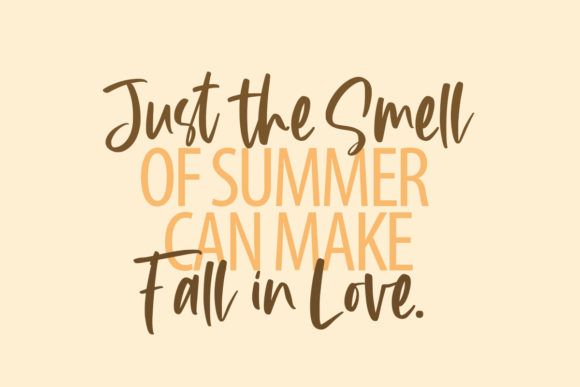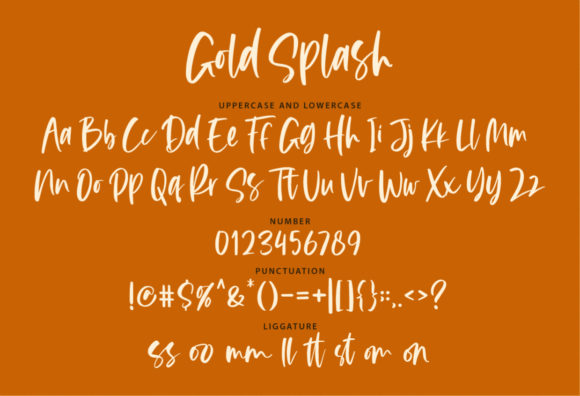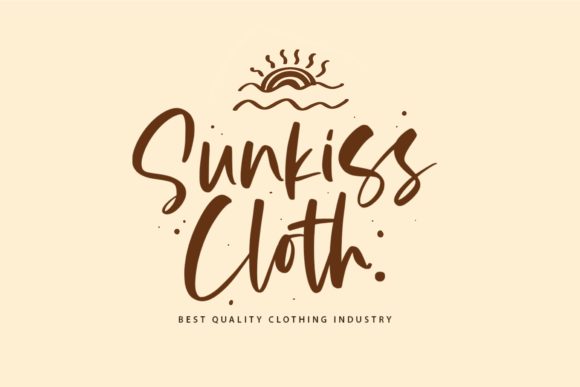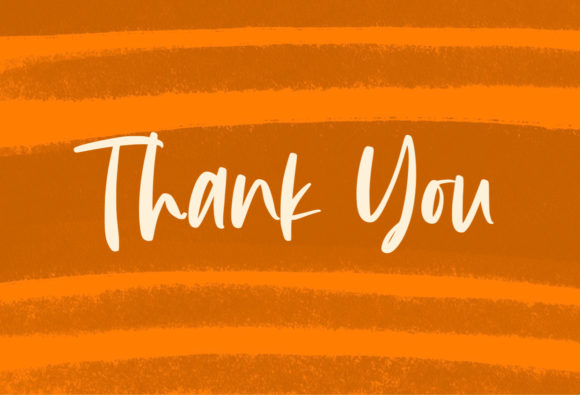
Gold Splash Font
About Gold Splash Font
Gold Splash is a beautiful handwritten font. Fall in love with its authentic feel and use it to create gorgeous wedding invitations, beautiful stationary art, eye-catching social media posts, merchandise,and cute greeting cards.